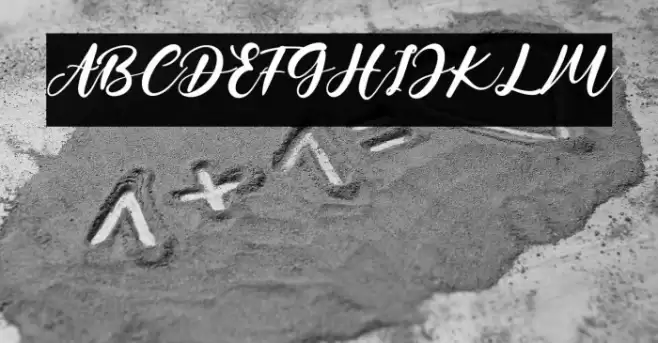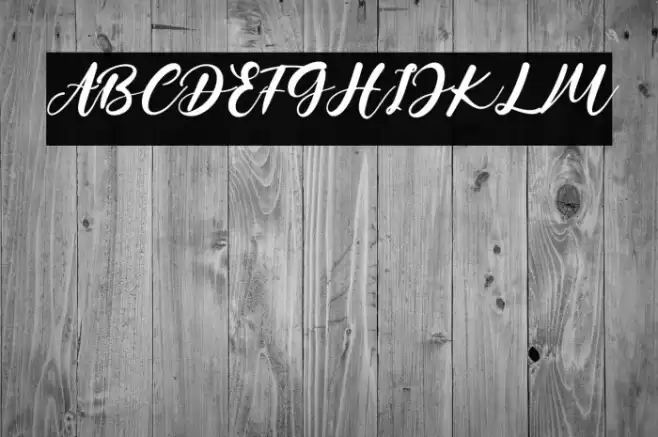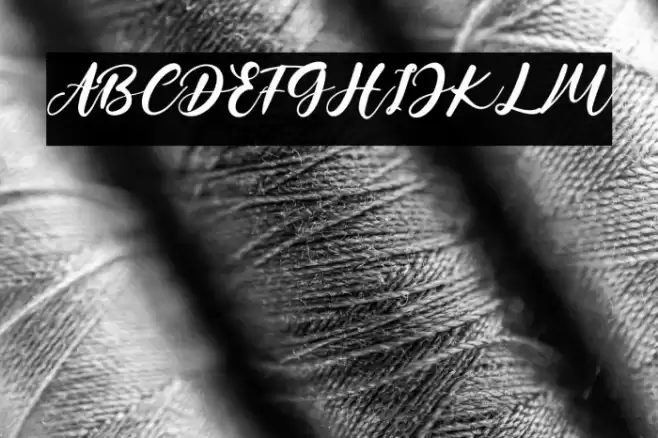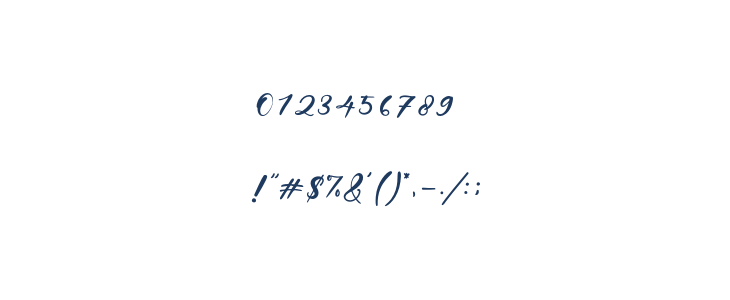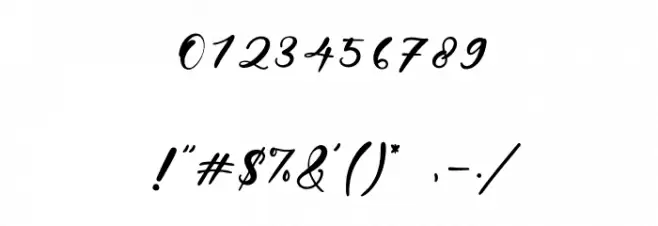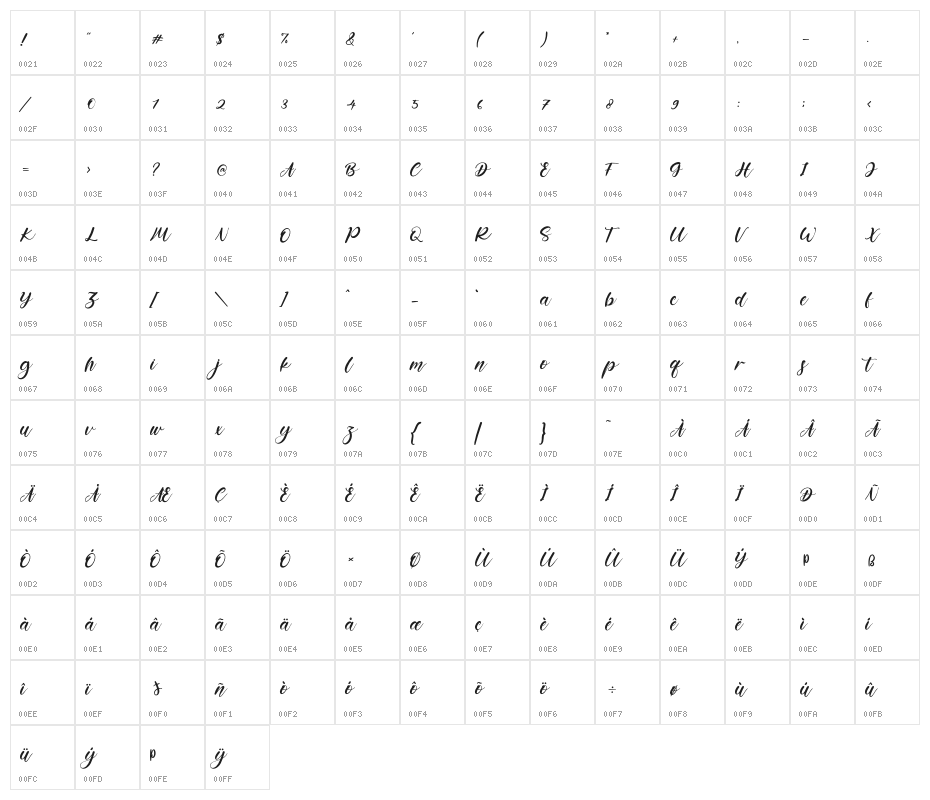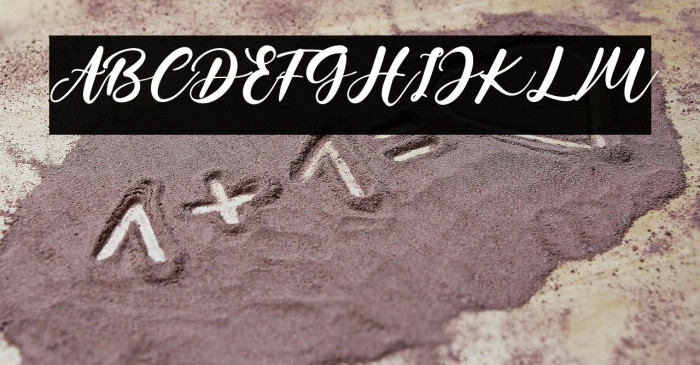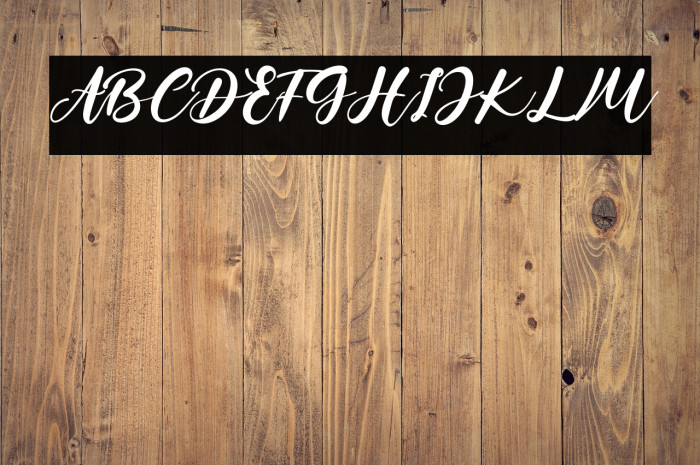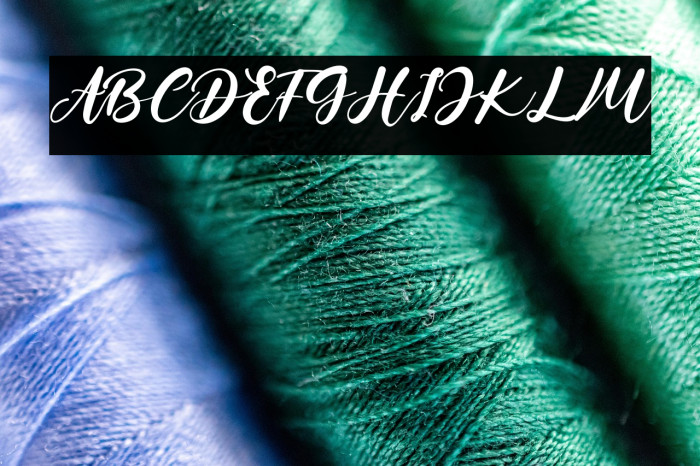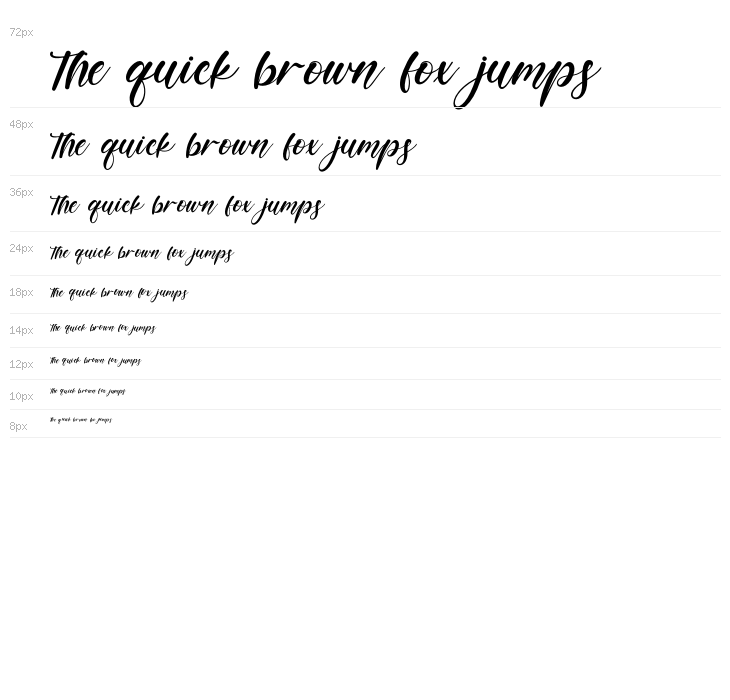
LillianMay Font
LillianMay Description
This elegant script font features flowing, cursive letters with a graceful and sophisticated style. Each character is designed with a smooth, continuous stroke that mimics the fluidity of handwriting. The uppercase letters are slightly larger and more ornate, while the lowercase letters maintain a consistent and harmonious appearance. The numbers and special characters are crafted to match the overall aesthetic, ensuring a cohesive look across all text. The font's design is perfect for adding a touch of elegance and refinement to any project.
A graceful script font with flowing, cursive letters from Uncategorized fonts.
- Font: LillianMay
- Proposed Projects: Ideal for wedding invitations, greeting cards, branding, and elegant logos.
- Overall Style: Elegant
- Use Case: Logos, Invitations, Decorative text